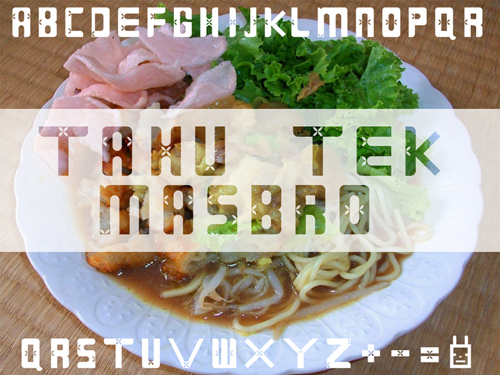
• Inspired from well-known pleasant-tasting food in Surabaya (the capital of province East Java), Indonesia, Tahu Tek. If you are a peanut or tofu-lover (or even both) you'll probably love tahu tek. The crunchy-taste of kerupuk be united with delectable half-cooked fried tofu, soft-texture of lontong, frech fries (yes, there is), a little bit of bean sprouts, garnish with pickles and tasty peanut sauce spread all over the half-cooked fried tofu.
I put several element of green soybean pod in my glyphs. Soybean is the main ingredient of tofu also known as bean curd. Let me know if you have some thoughts and critics by giving comments :) I would really appreciate it. ^^
This is cute. but I think you can make the stroke more consistent for V, X and Y
cute font :)
Good concept~
A little fix on the strokes of D, V, X, and Y plus equalizing the height of K would make it better ^^ nice job anyway.
cute one! really nice looking font!:D
Even tho there are unequal shapes as in K, V, Y, X (because of fonstruct's insufficiency I know) but you did it really good! :D
D,K,V,X,Y perlu dikoreksi lagi agar terlihat lebih konsisten :)
bagus nad ,, hihi
The concept is nice, i personally love TAHU TEKKK so much!
some of the word doesn't seem to have a nice consistency, like V and X, mind the widht, the height is already ok!
overall good job, Well done!
cutee
The "M" and "N" is different, supposed to be like that?
the leg of the "K" is not quite nice and the "J", i think u can fix that so it can go pretty well.
the x is too thin to i think
cute nad! tapi V, X, Y perlu diperhatikan, terus K nya kurang tinggi dikit yang tangannya hehe
girly typeface
Amazing font! So cute XD
So cool and cute, Nice!
cute font, well done :)
Hallo... keren fontnya ada motif tapi tebal huruf kalo bisa dibuat sama... good job
what a pretty font :3
Nice concept! cute typeface! Great job!
Hurufnya lucu pol! Kesannya sangat ceria dan menyenangkan . Keep it up
So cute, but can you fixed the "M" ornament?
Fontnya bagus unik, tapi sayang huruf x agak kurang tebal.
Uwih... keren rek punya'e Nadya :D
Fontnya sudah konsisten, dan kerenn. Good job!
so cool ! ide nya bagus
Keren Nad unik Fontnya saya suka
Comment by vinsen15174 8th april 2016
Cute font :)
Comment by Celine Lawinata 8th april 2016
i dont know why but this font is really cute and pretty too xD good work XD
Comment by ElviChen97 8th april 2016
nice concept. reaally cute. but the v,x,y need to be consistent with the others :)
keep trying!
Comment by bel'f 8th april 2016
so cute,,,,, goodjob
Comment by Ivana H W 8th april 2016
strokenya "X", "V", sama "Y" ada yg terlalu tipis dan huruf "V" terkesan terlalu lebar.. nice job anyway..
Comment by CynShin08 8th april 2016
lucu se ada bentuk bunga-bunga e berasa ada di taman nih
tpi tebel tipis e kok beda" yaaaaa ??? ap emg sengaja di gituin ?
but overall i said YES
Comment by christiandenny10 8th april 2016
lucuuu nad, hhehehe bentuk kumis kucing yaa
Comment by repratantra 9th april 2016
Konsepnya bagus, typeface nya unik...
dis' font is sho fabb <3
im gonna bless this font! *sparkle sparkle* *muach*
//princessapprove
anw, good job nad!!
quite an insight to use bean curds as inspiration, nice job! A beautiful decorative one, but still maintains the anatomy. I'd suggest to fix the 'D', widening the stroke than the hairline.
keep up the good work~